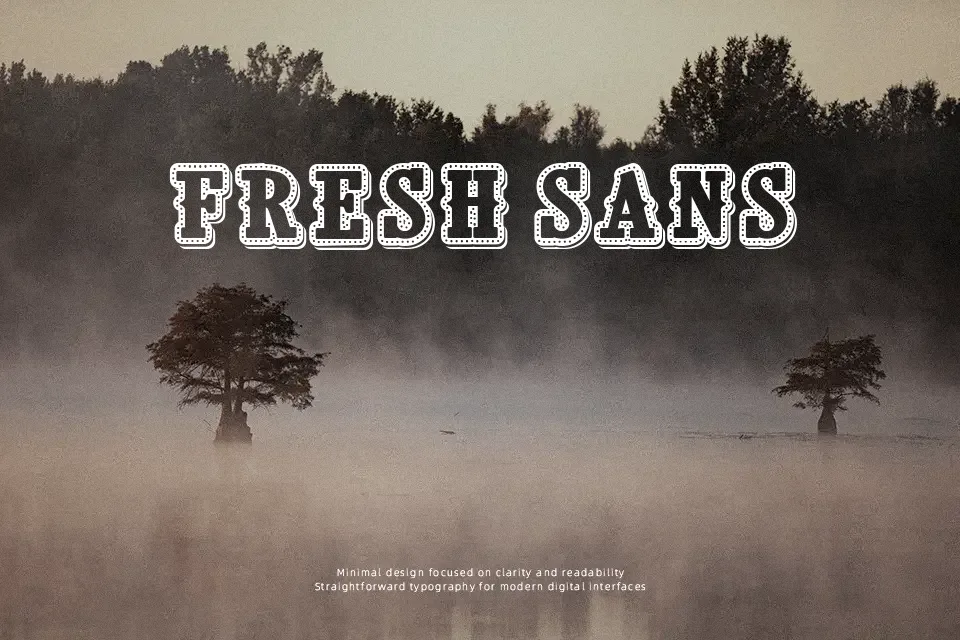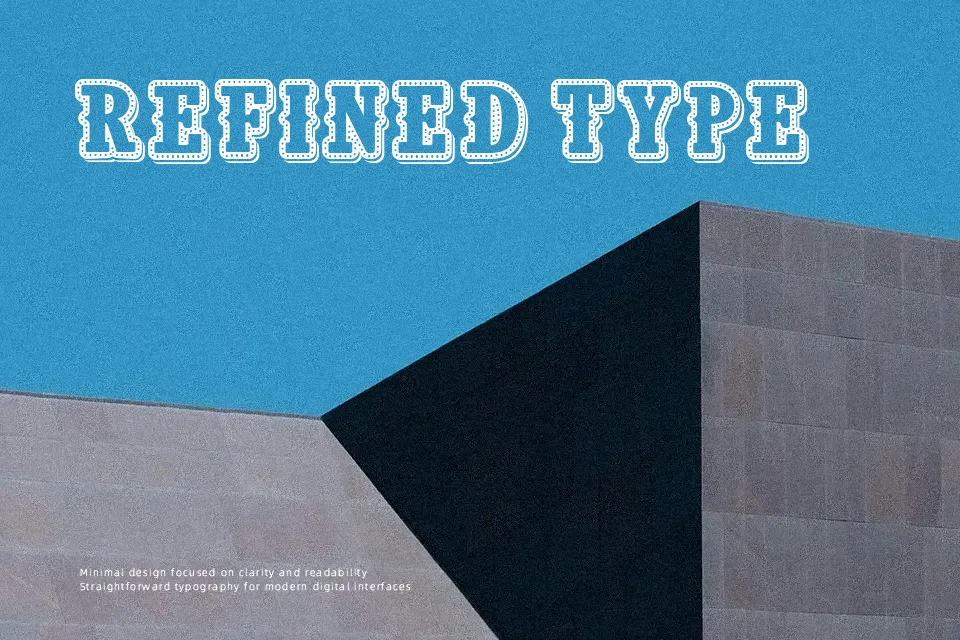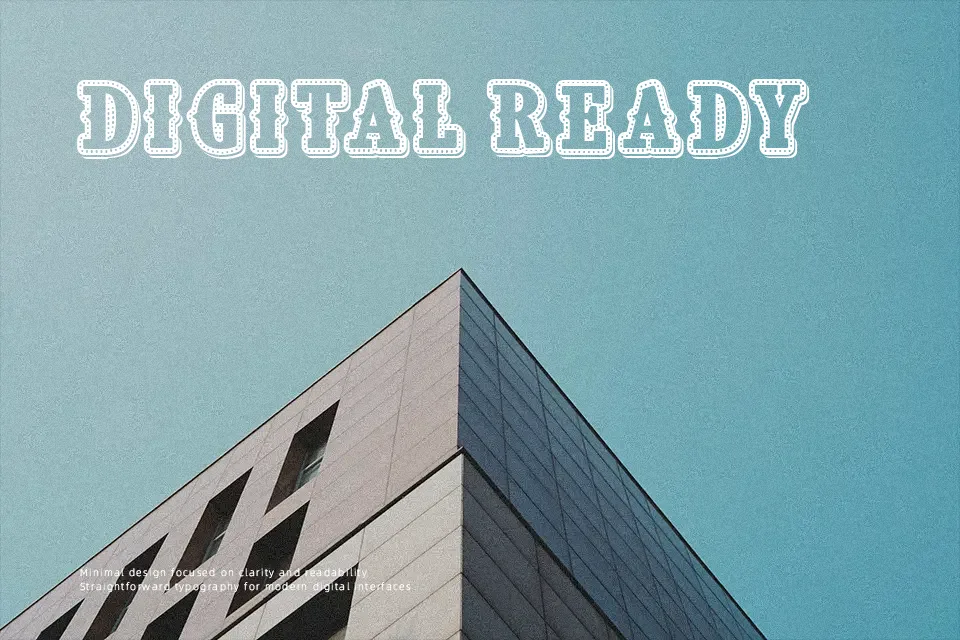
CF Le grand cirque Font
Designed by Cloutierfontes
CF Le grand cirque Font features sturdy display letterforms characterized by thick stems, ornamental serifs, and balanced proportions built for impactful visual hierarchy. The character spacing is intentionally compact to maintain rhythmic density across short headline compositions, performing exceptionally well on festival posters, vintage beverage packaging, and amusement park merchandise. However, the heavy weight and elaborate flourishes severely compromise readability when rendered at small sizes or throughout continuous body copy. The typeface achieves its best aesthetic balance in expansive display settings where individual stroke contours remain crisp, providing an authentic historical tone across bold graphic designs.
Best For: carnival event posters, vintage packaging labels, theatrical marquee headlines, amusement park signage
Not Ideal For: long body copy, mobile app user interfaces, technical documentation, small caption text